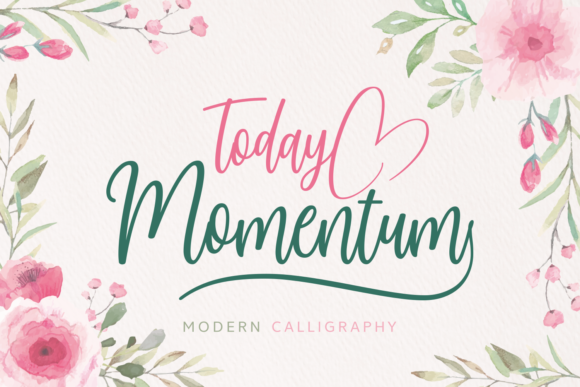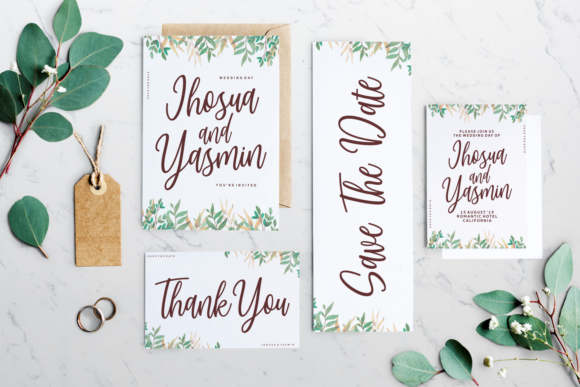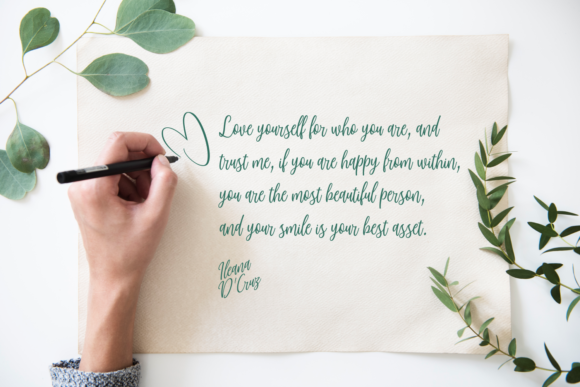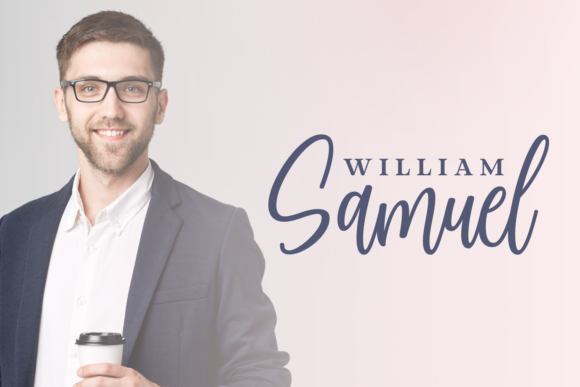
Today Momentum Font
About Today Momentum Font
Today Momentum is a stunning handwritten font with a lovely and delicate charm. Use it to add a sophisticated and authentic spark to any creative project!